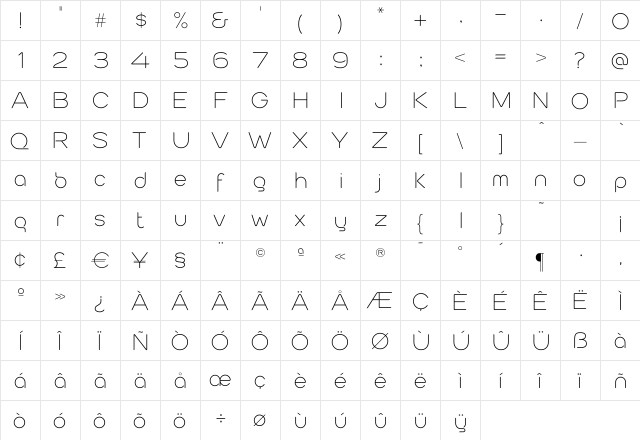
CabourgLight Regular
Design Context for CabourgLight Typeface
CabourgLight takes a measured approach to typography — its balanced proportions and neutral character make it a reliable workhorse for both digital and print work. Its slender proportions lend an understated elegance to any composition.